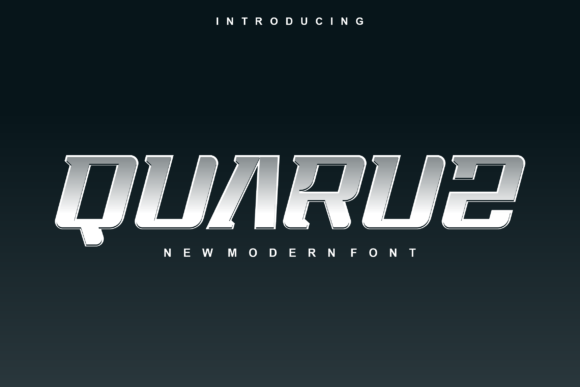
Unleash your typographic creativity with Quaruz, the modern and bold display font that exudes authenticity and assertiveness. Crafted by the talented kalingga.albert, Quaruz is a font family that's perfect for making a lasting impression.
Step into a world of typographic possibilities with Quaruz, a font that embodies the essence of contemporary design. Its striking lines and confident curves command attention, leaving an unforgettable mark on your audience.
Whether you're designing logos, posters, social media graphics, or website headers, Quaruz is your go-to font for making a statement. Its versatility knows no bounds, adapting effortlessly to a myriad of projects and industries.
With Quaruz at your fingertips, you'll discover a new level of typographic expression. Its bold strokes and sharp angles create a sense of power and authority, while its carefully crafted details add a touch of elegance and sophistication.
Stand out from the crowd and let your typography shine with Quaruz. Its unique character and unwavering boldness will elevate your designs to new heights, leaving a lasting impression on all who encounter it.
Embrace the transformative power of Quaruz and watch your creative vision come to life. Its dynamic presence will captivate your audience, leaving them in awe of your typographic artistry.
Don't settle for ordinary fonts. Choose Quaruz and unleash your typographic potential. Its modern and assertive style will set your projects apart, leaving a legacy of creativity and innovation.